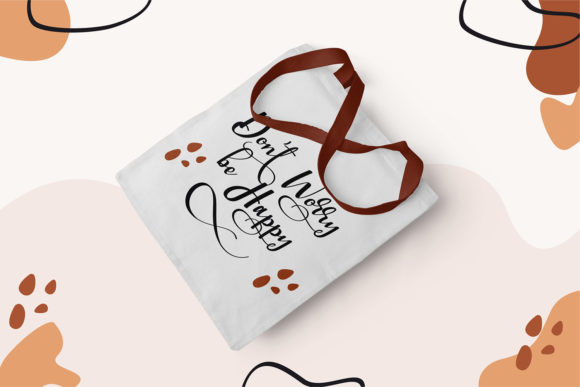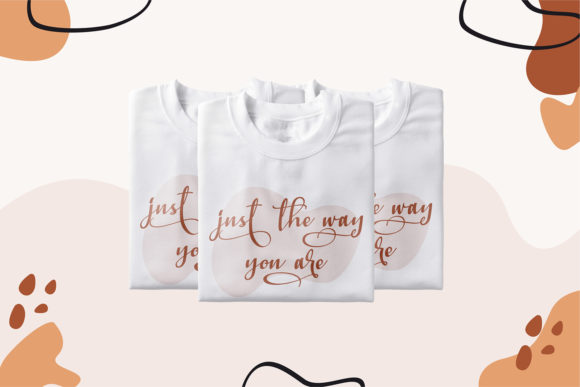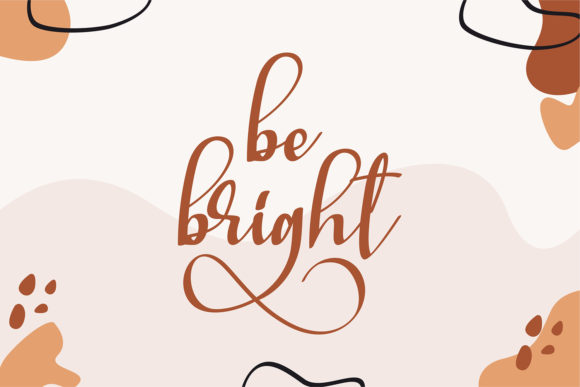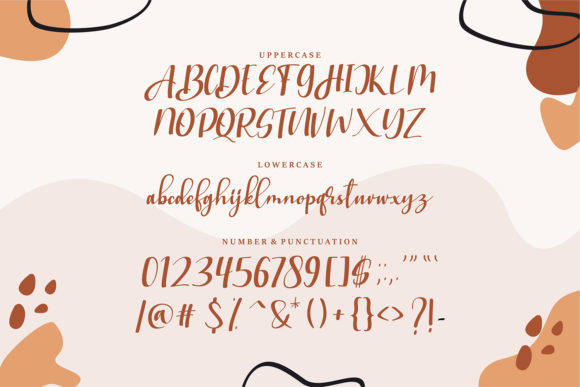
About Stranggi Font
Stranggi is a relaxed brushed handwritten font, with characters that dance along the baseline. It has a casual, yet elegant touch. It can be used for various purposes such as logos, wedding invitations, headings, t-shirts, letterhead, signage, labels, news, posters, badges and so much more.